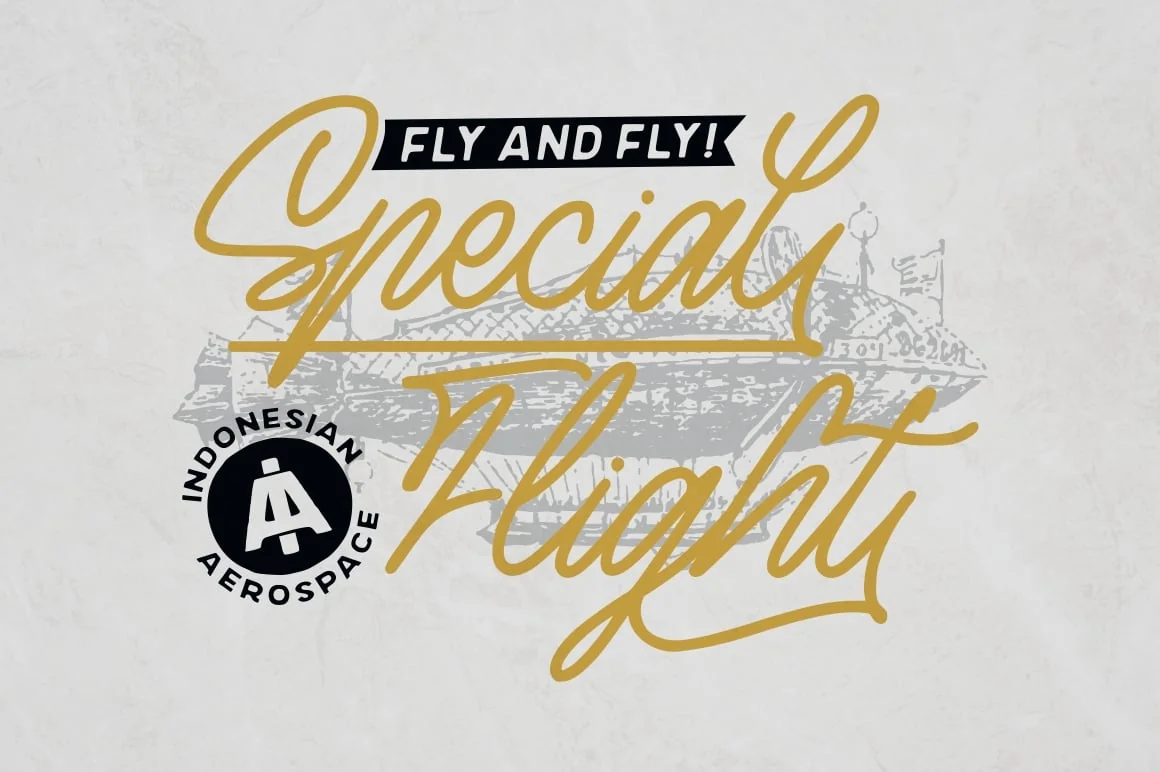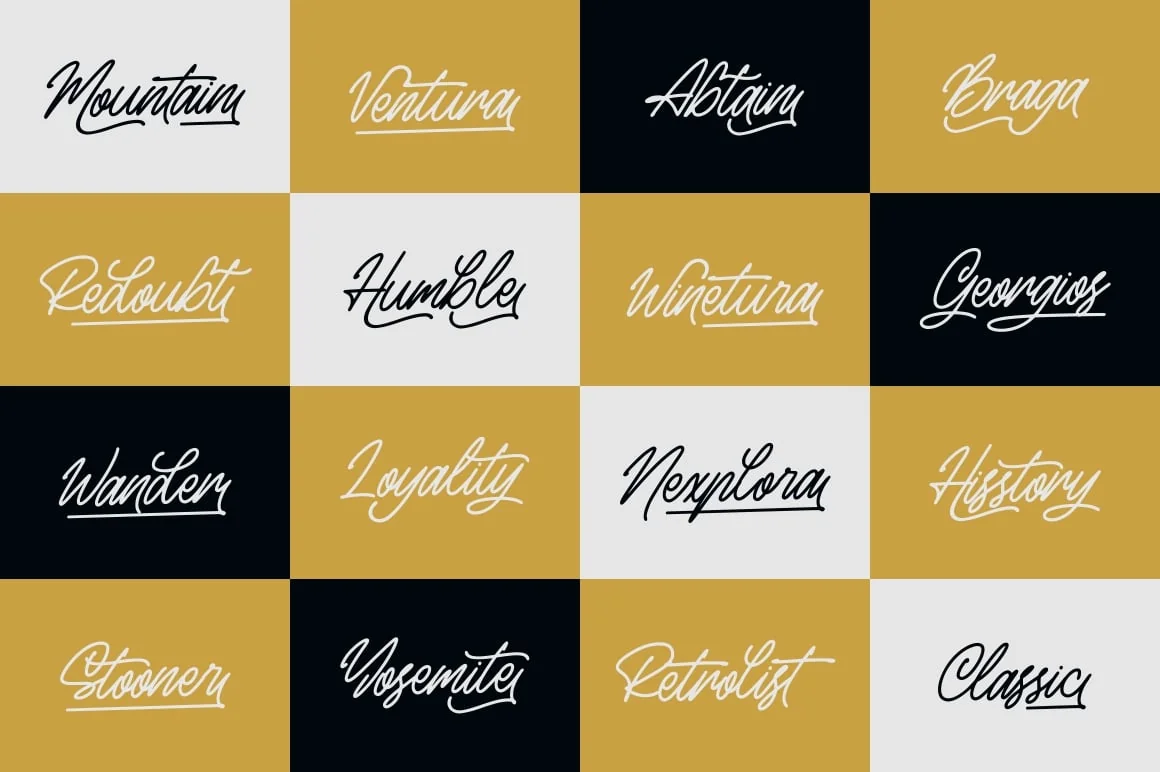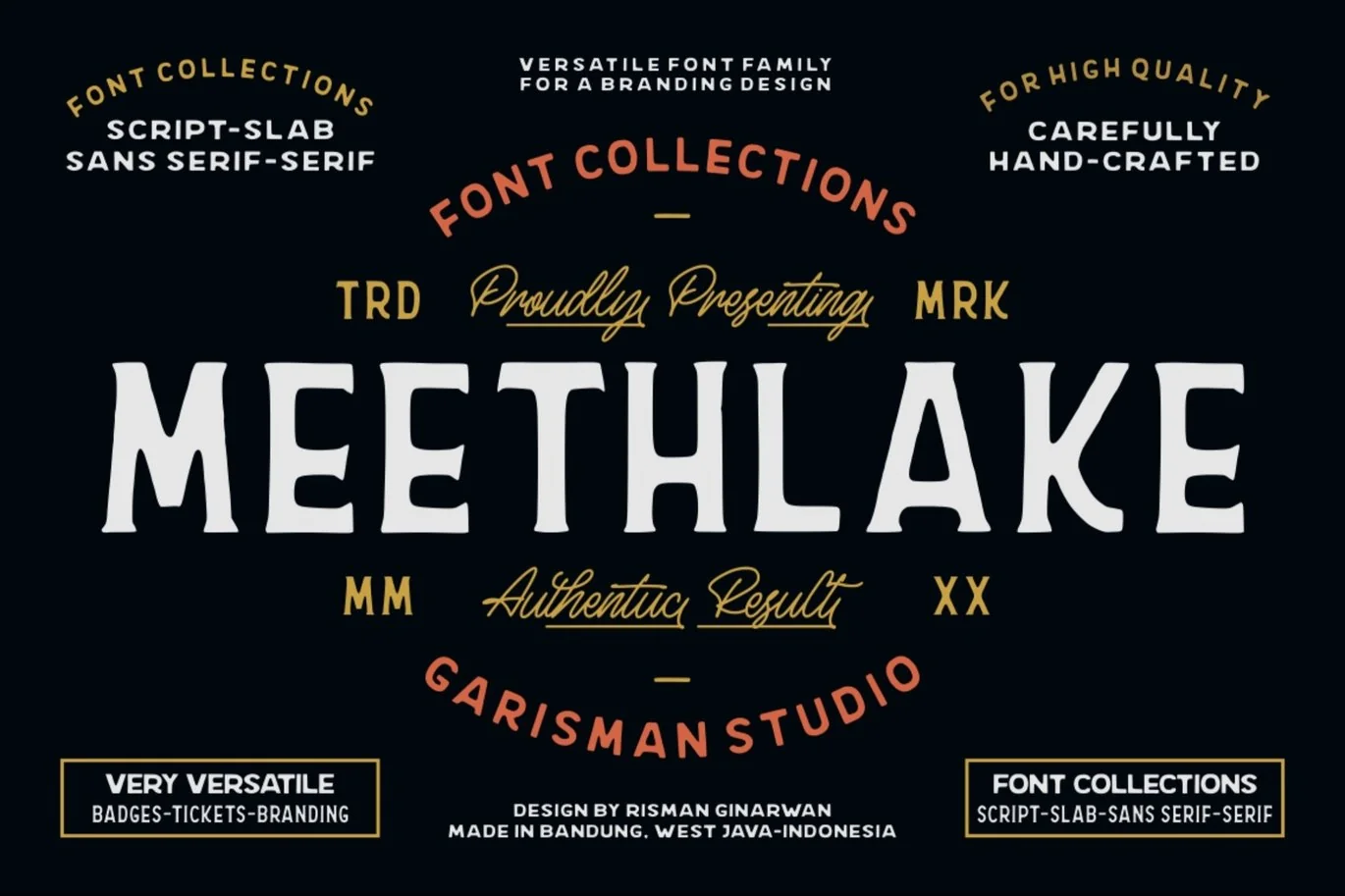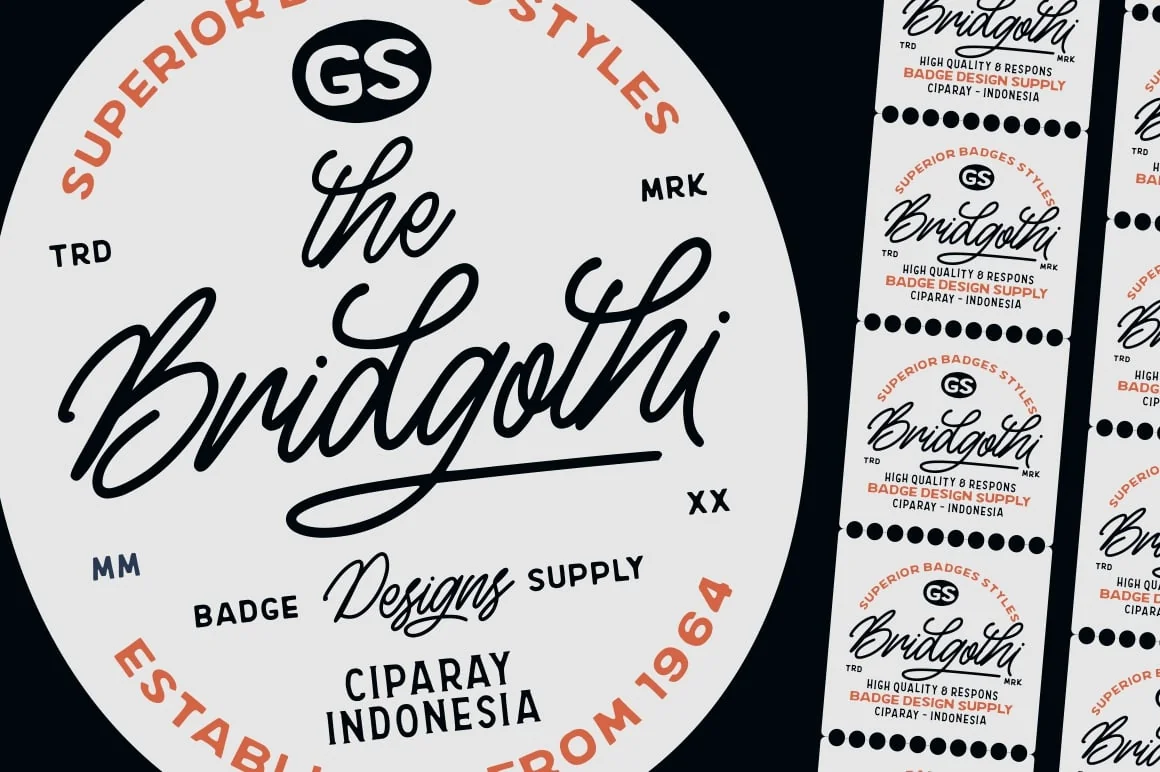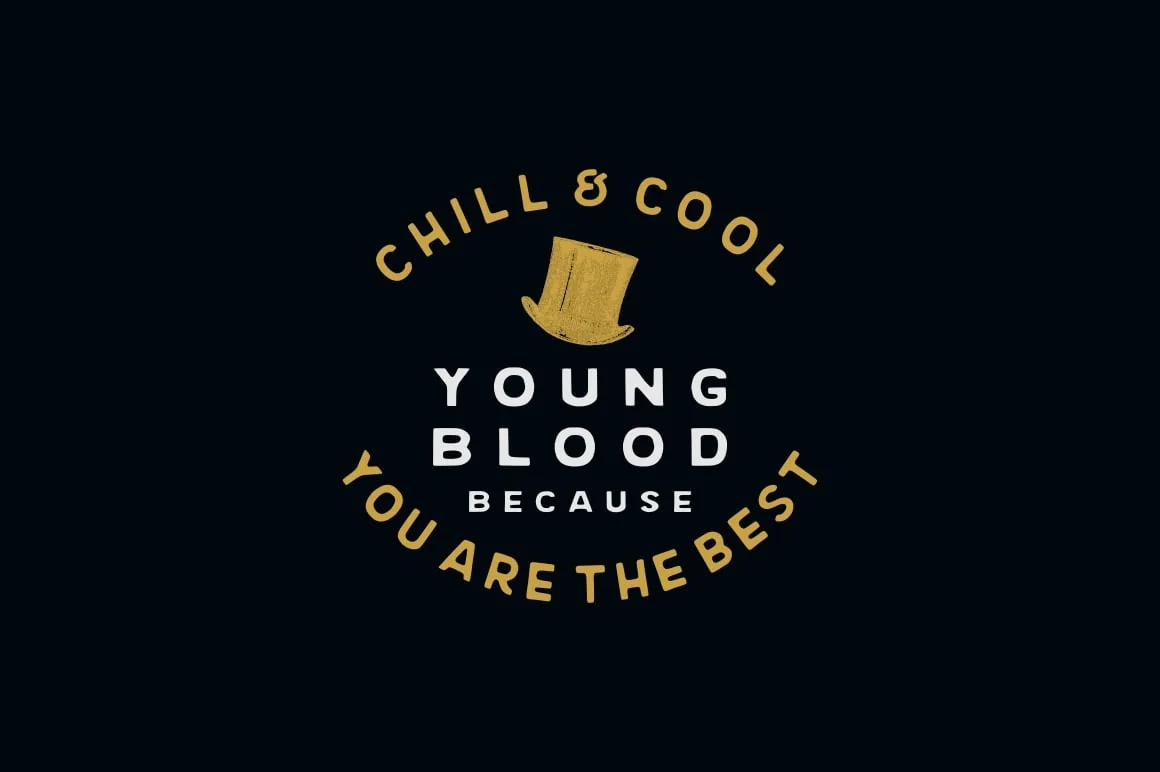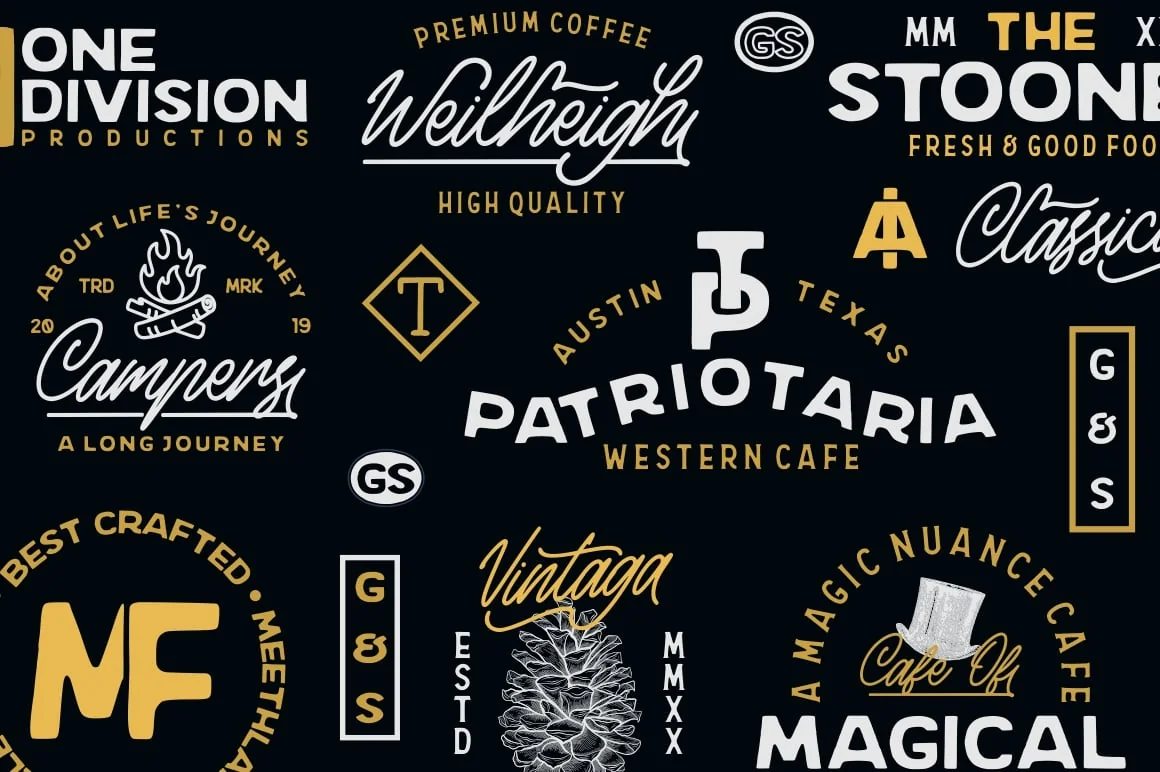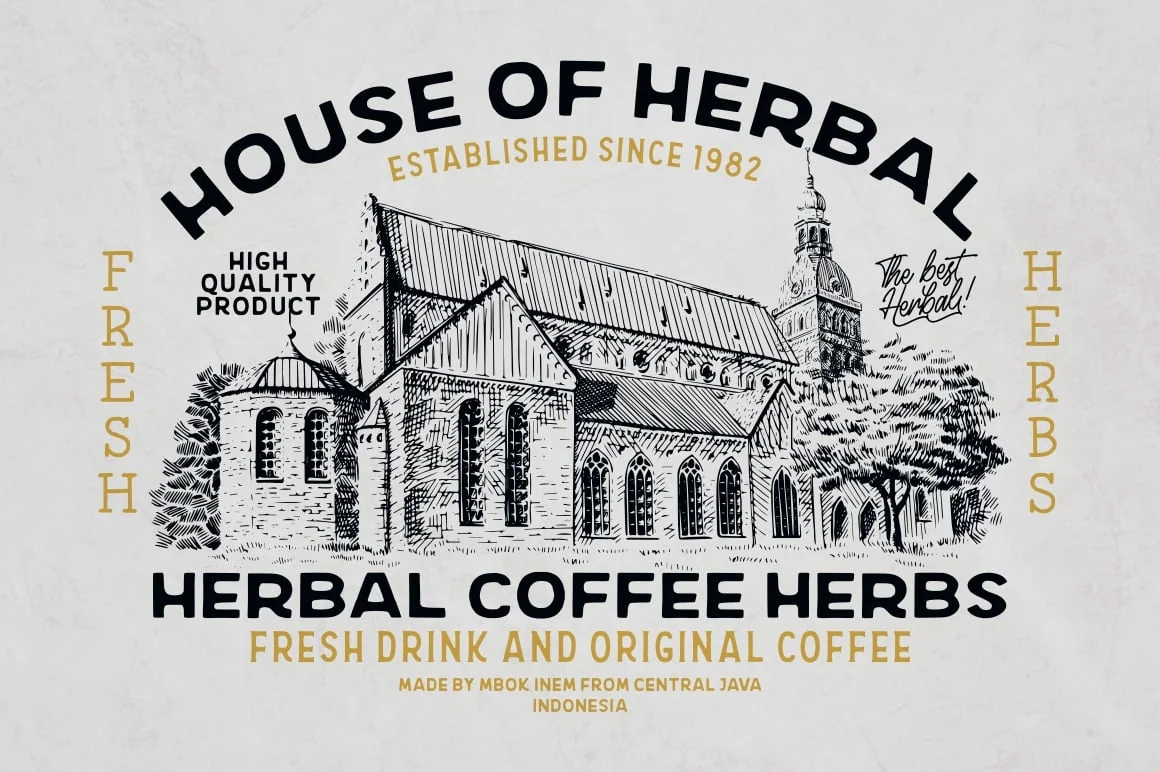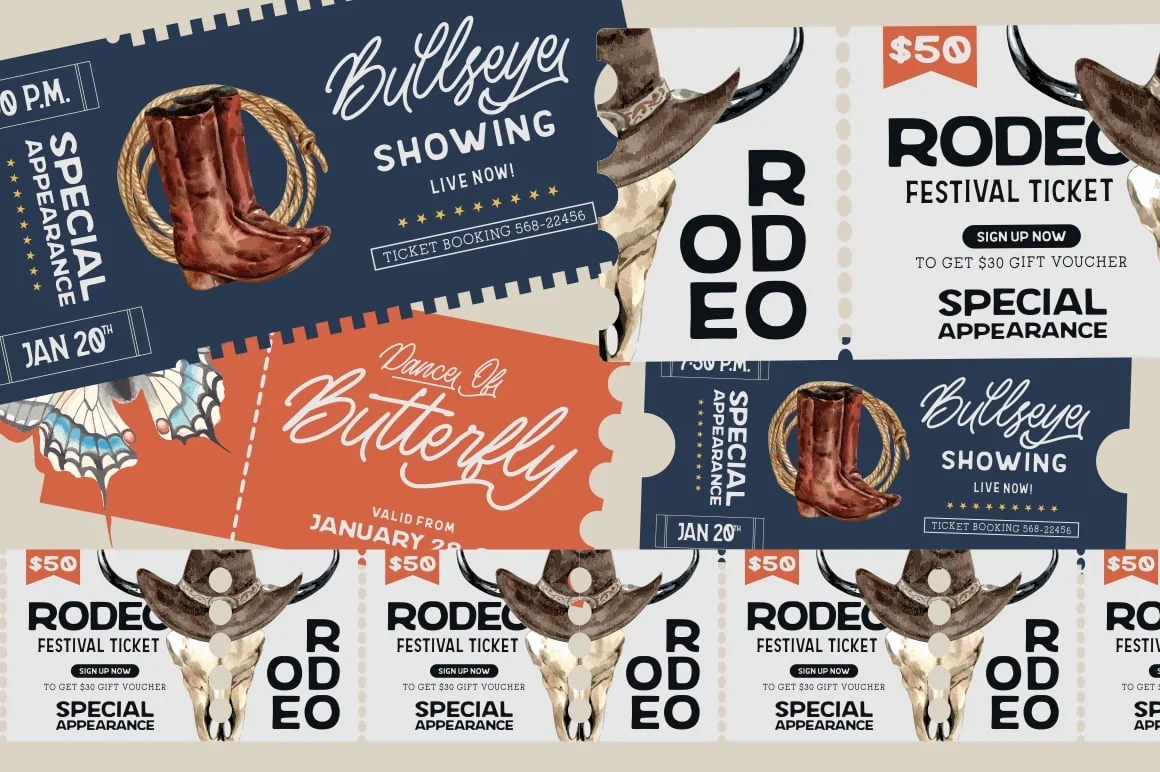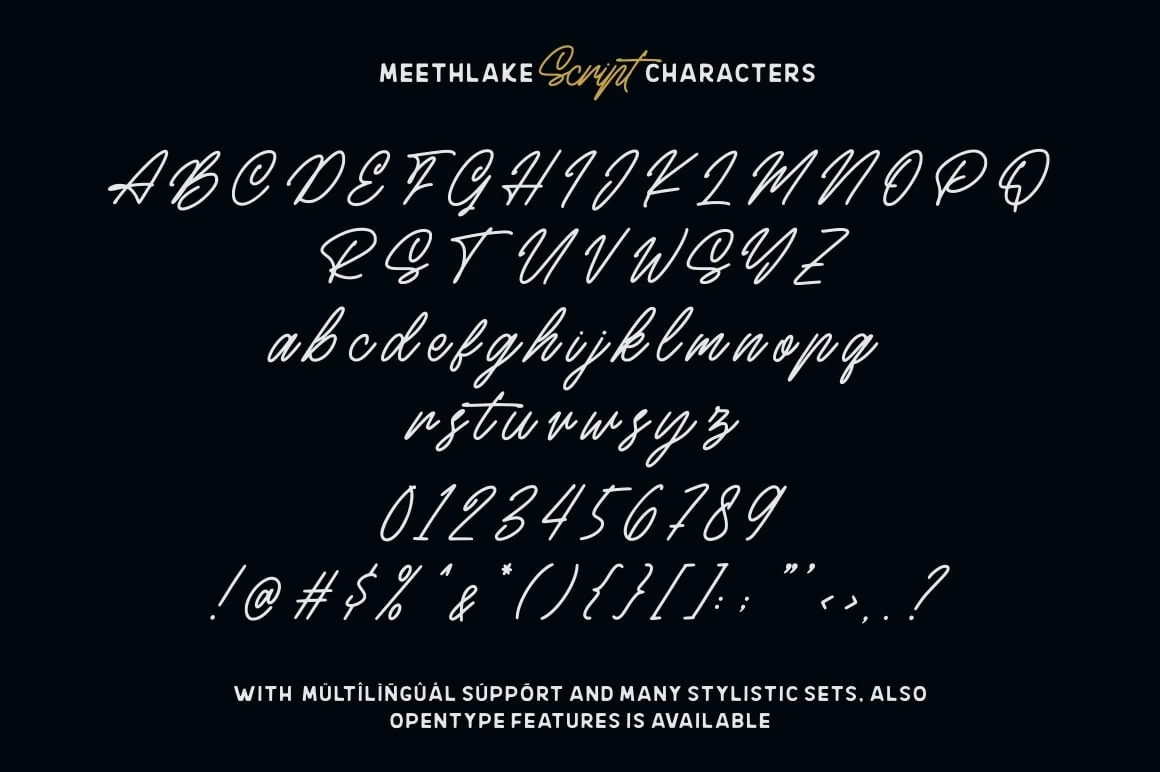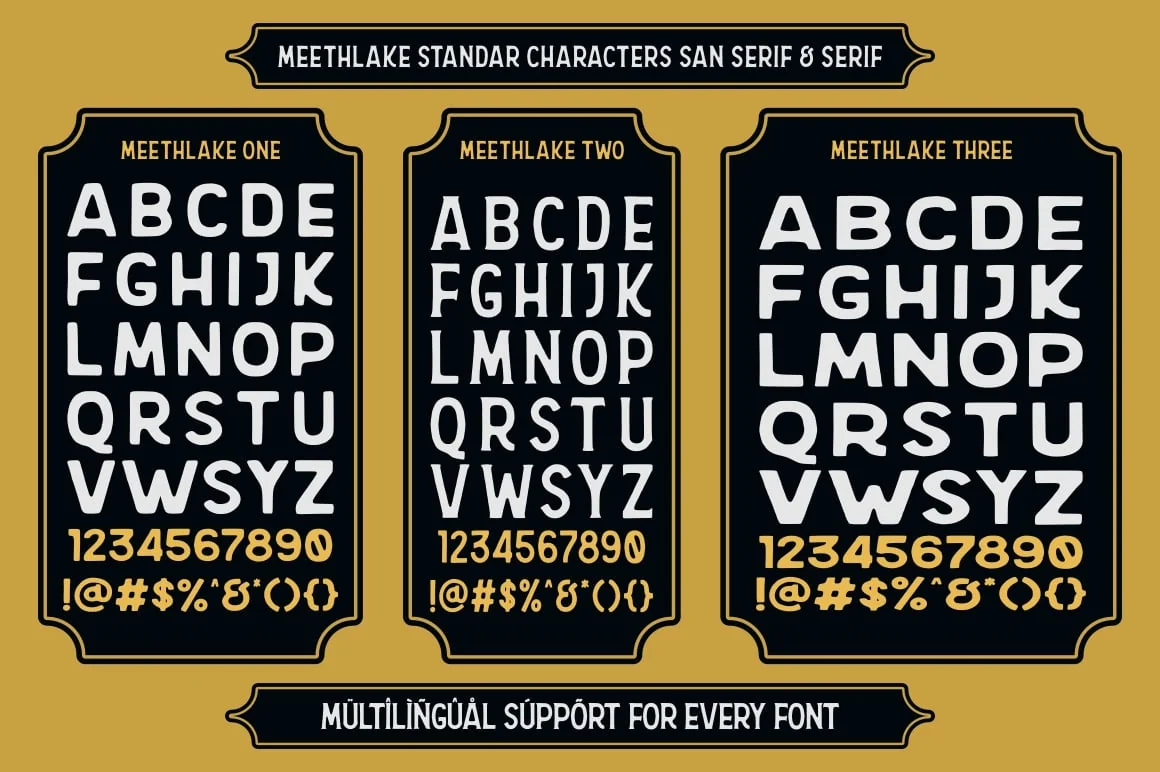
Meethlake | Vintage Font
Introducing Meethlake Typeface
Meethlake born from inspiring vintage display. This font gives a feel of vintage, classic, old, handmade looked like. Already PUA Encoded and I think this font is perfect for people looking for vintage aesthetic or logo-type. Suitable for any graphic designs such as branding materials, t-shirt, print, business cards, logo, poster, t-shirt, photography, quotes .etc.
- Numerals & Punctuations
- Multilingual characters (support for 23 languages)